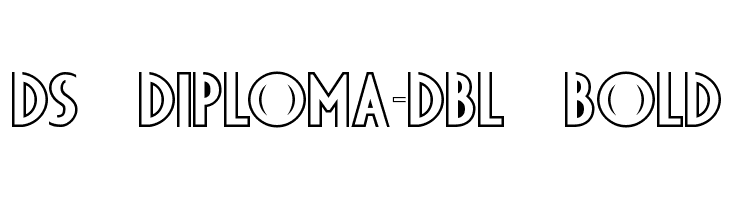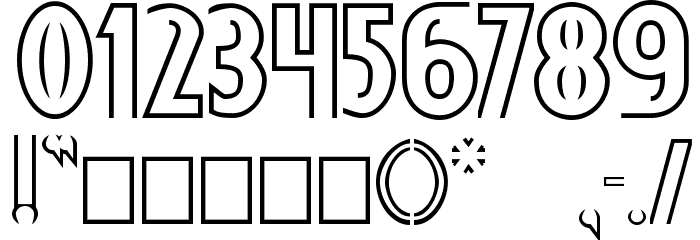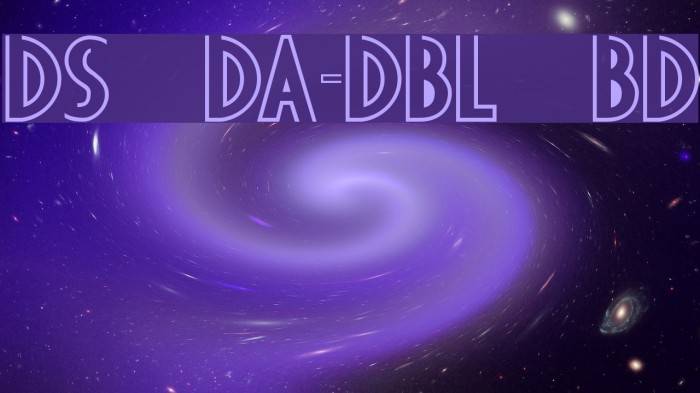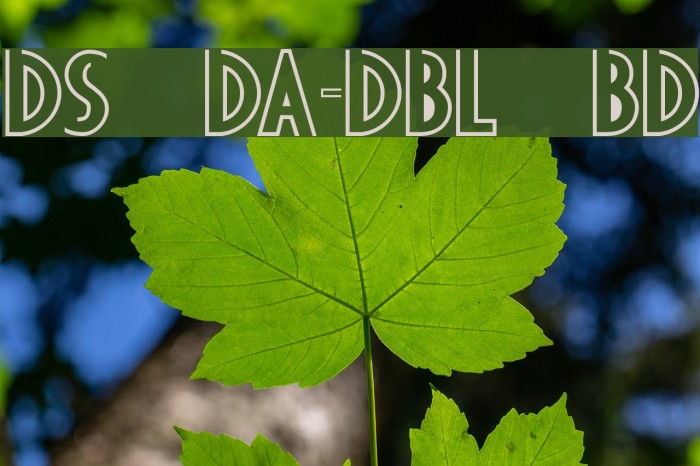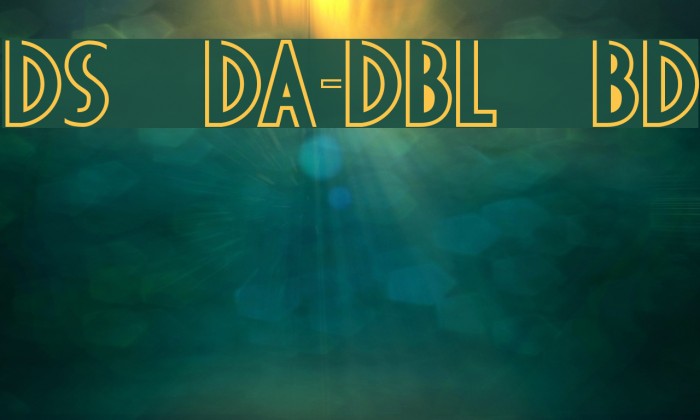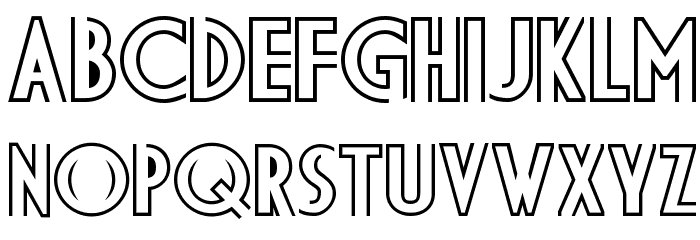
DS Diploma-DBL Bold Font
This font features a bold, geometric style with a strong emphasis on clean lines and sharp angles. The characters are outlined, creating a hollow effect that adds a modern and dynamic feel. The uppercase letters are uniform in height, while the numbers and special characters maintain the same bold, outlined aesthetic. The design is highly legible and visually striking, making it suitable for a variety of creative applications. The font's unique style is ideal for projects that require a contemporary and eye-catching look.
A bold, geometric, outlined font with a modern and dynamic style.
• Proposed Projects: Ideal for posters, logos, headlines, and branding materials that require a bold and modern aesthetic.
• Category: Decorative/Display
• Overall Style: Modern
• Use Case: Headlines, Logos, Posters